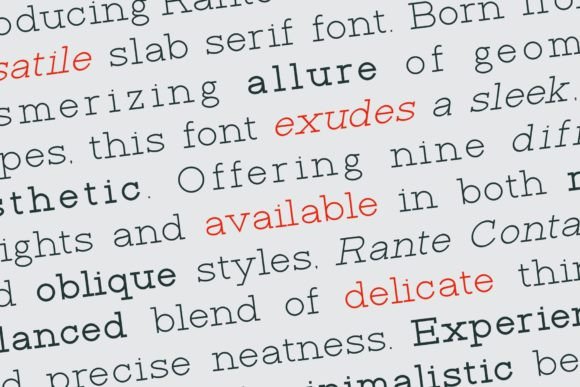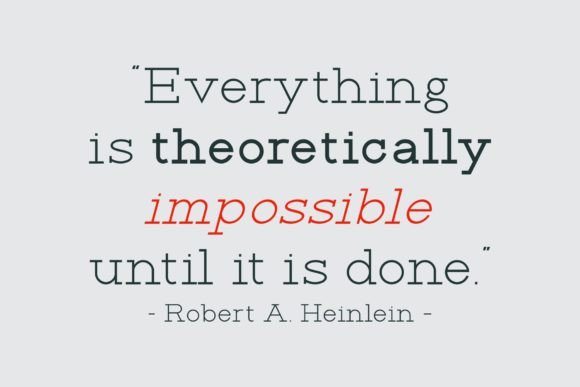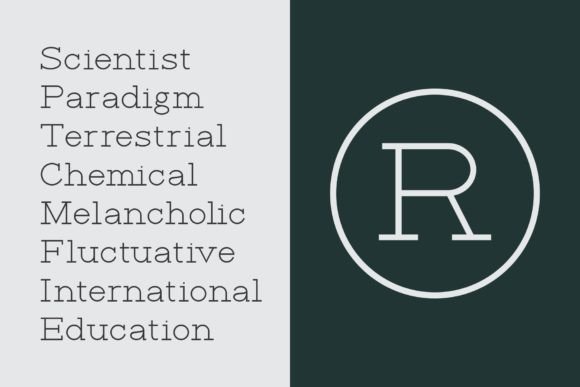
Introduction to Rante Contact Font
Introducing Rante Contact, a slab serif typeface characterized by its versatility and simplicity.
Built solid and brimming with confidence, this font perfects standard and oblique styles alike Boasting a spectrum of nine variable weights, Rante Contact is a testament to diverse design.